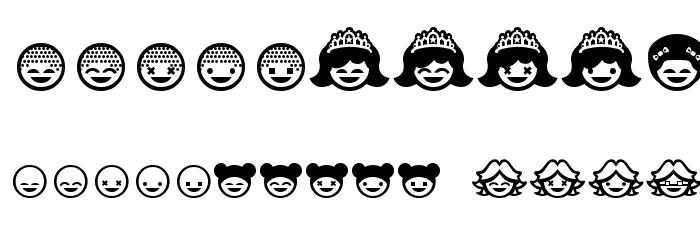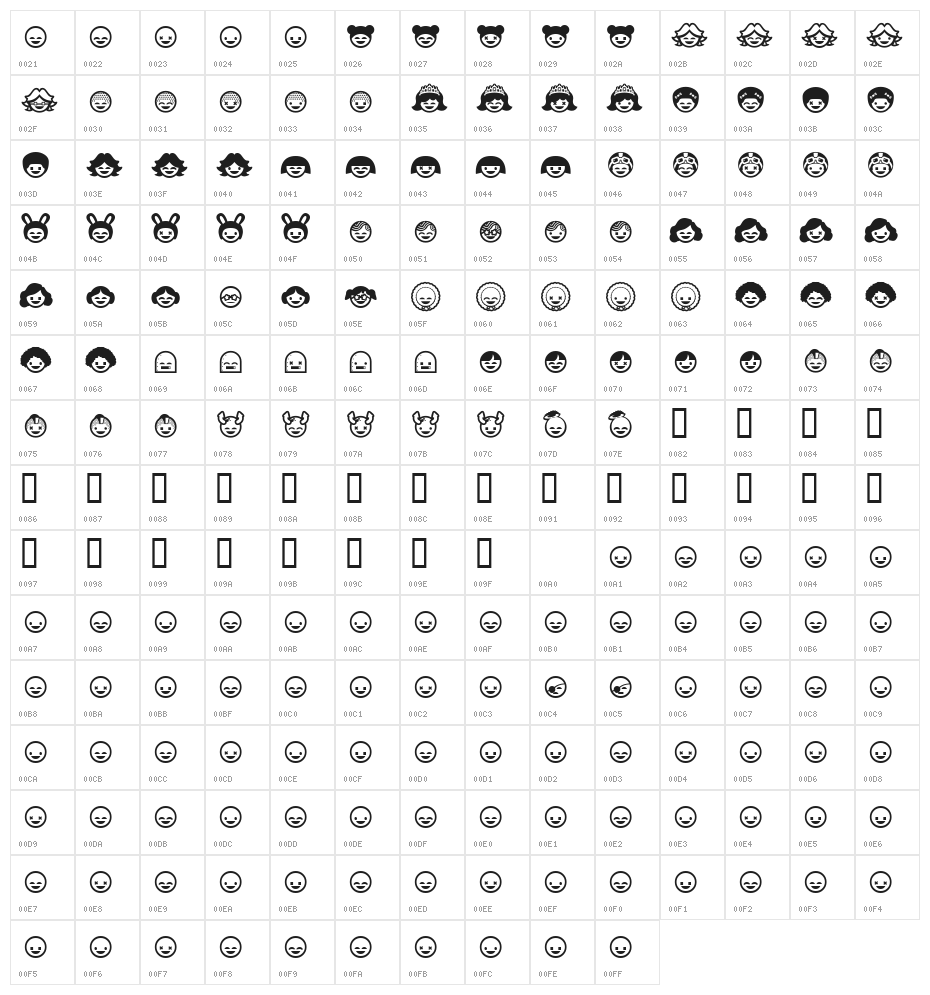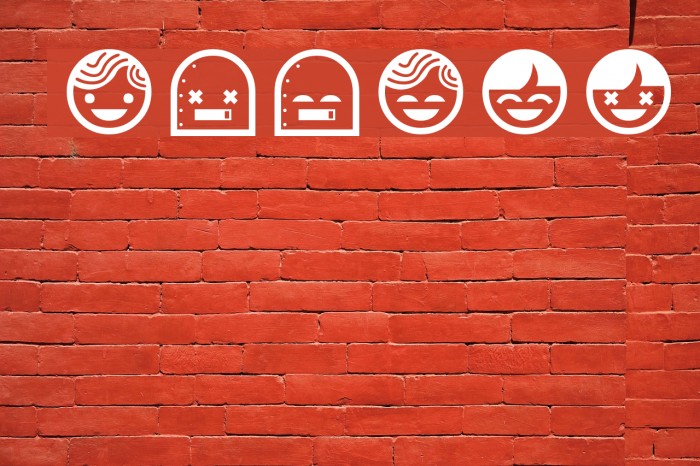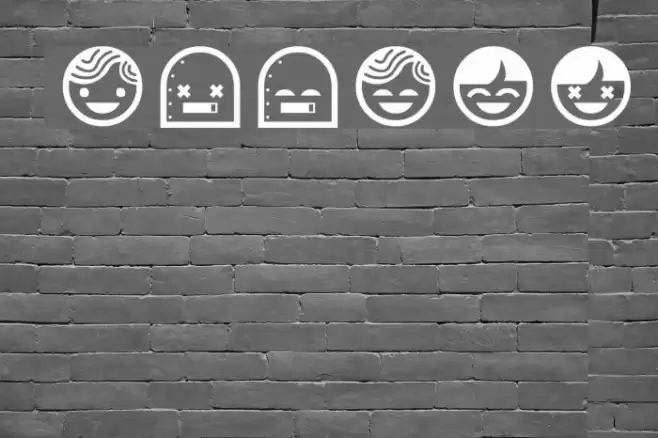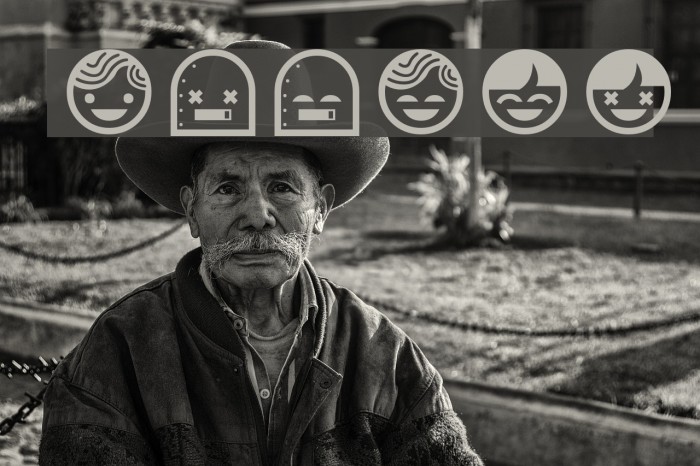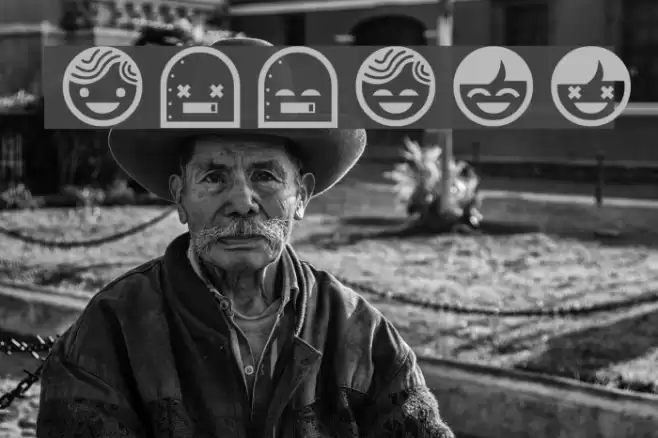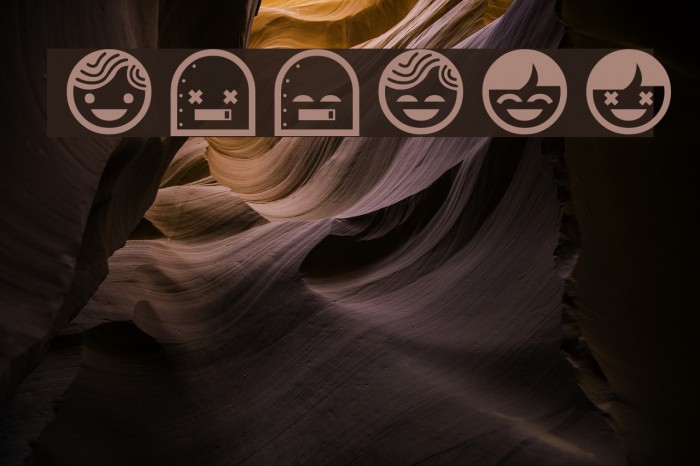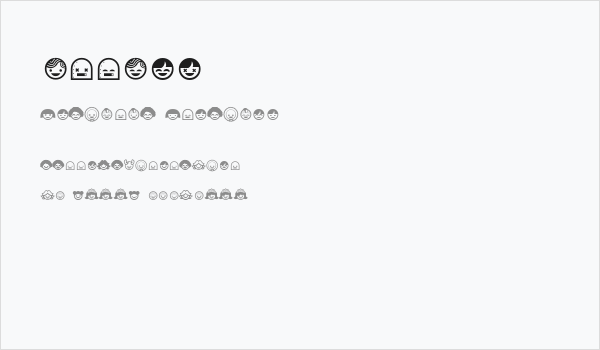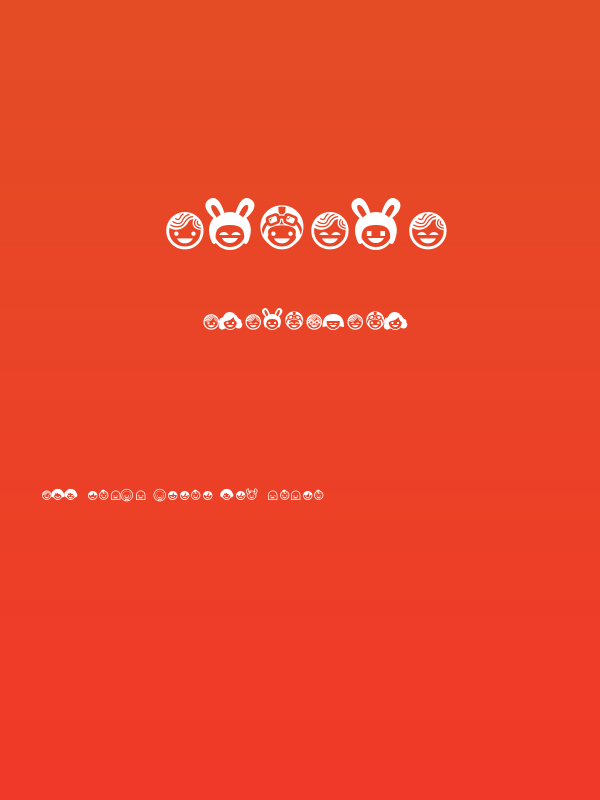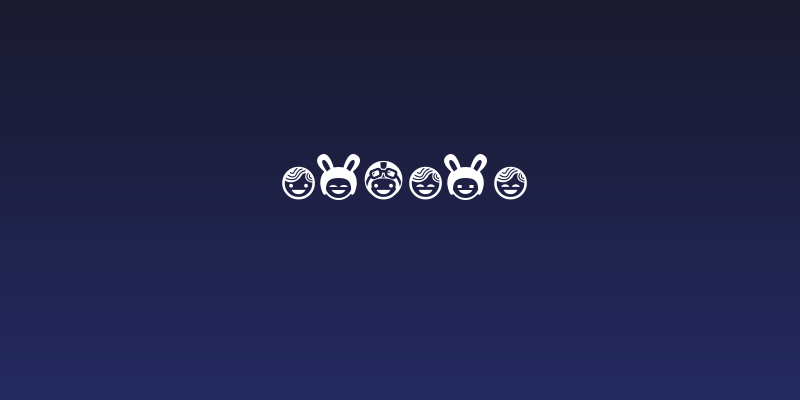
SkiPop Font
SkiPop Description
This is not a valid font. The image contains a series of stylized, cartoon-like faces and characters, each with unique features such as different hairstyles, accessories, and expressions. These elements are more decorative and illustrative rather than typographic, lacking the typical characteristics of a font such as letters or numbers.
| Use Case | Illustrations, Stickers, Graphic Design |
| Proposed Projects | This set of illustrations could be used for creating stickers, character designs, or decorative elements in graphic design projects. |